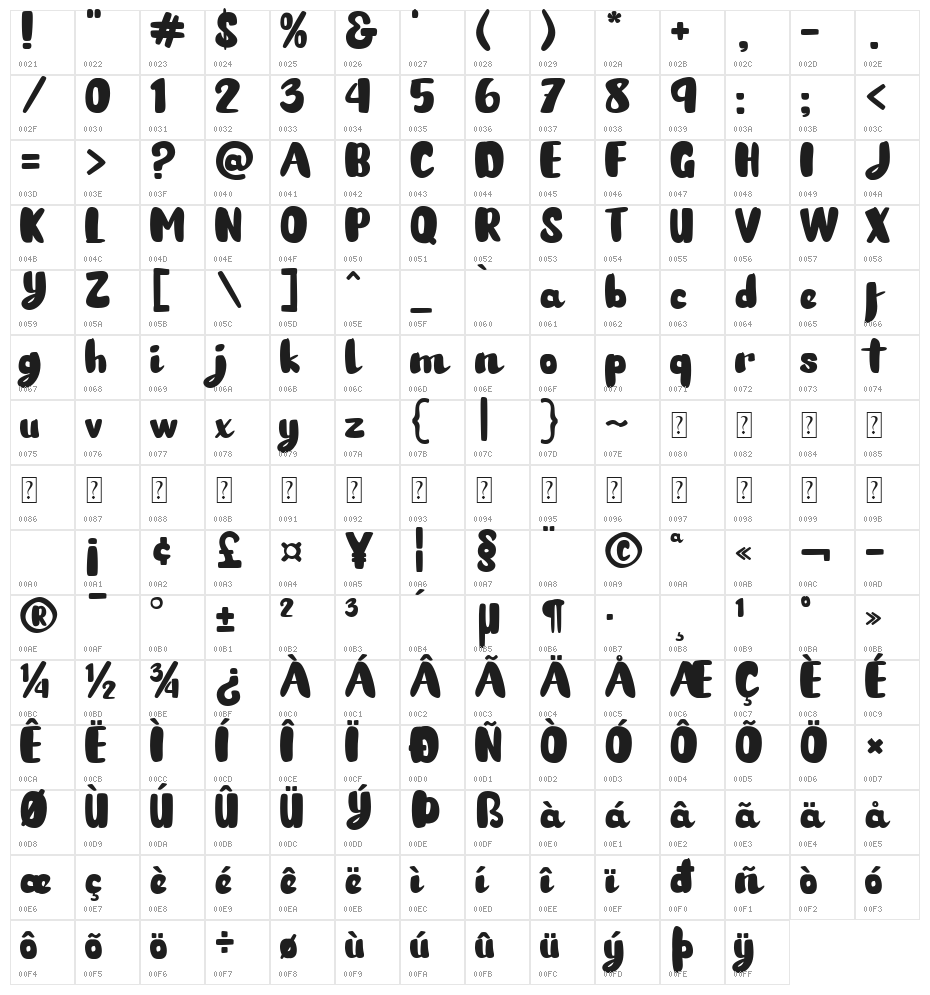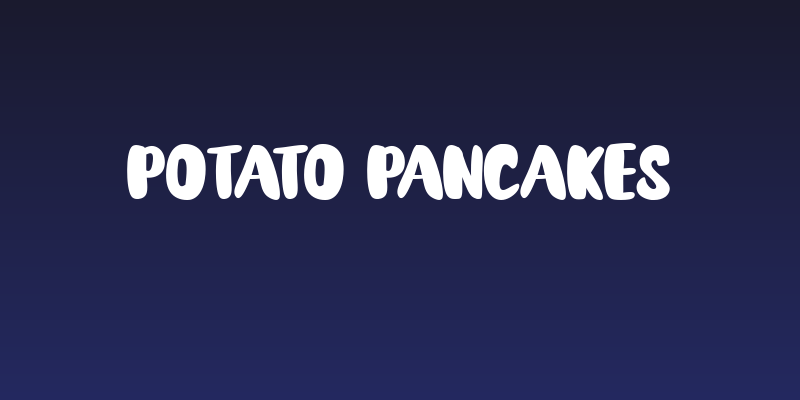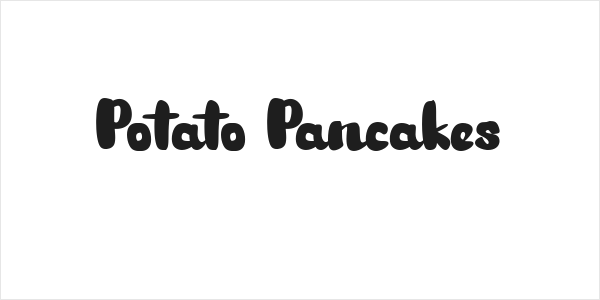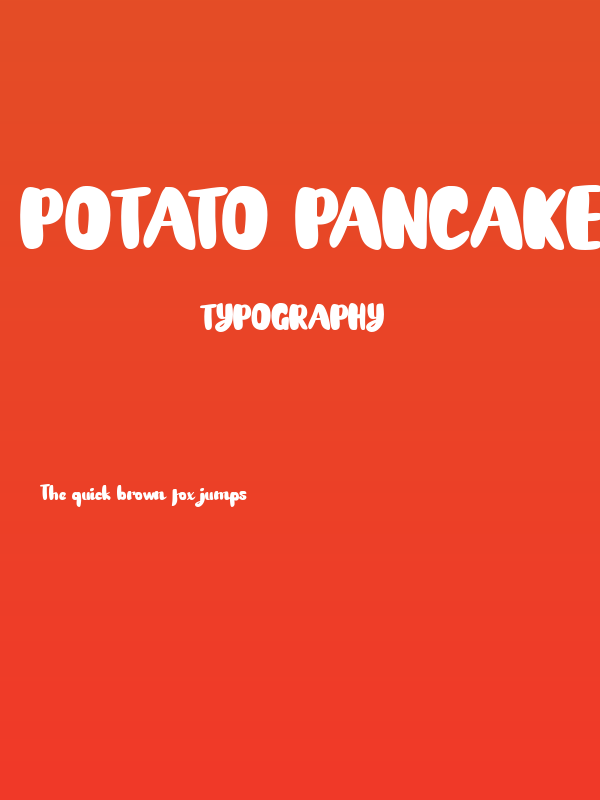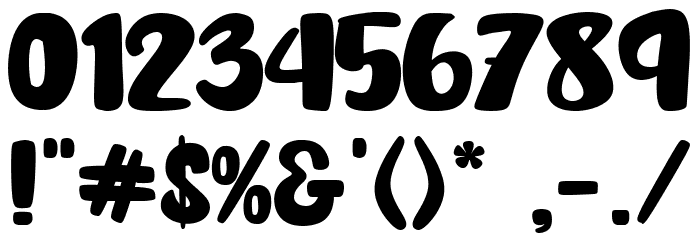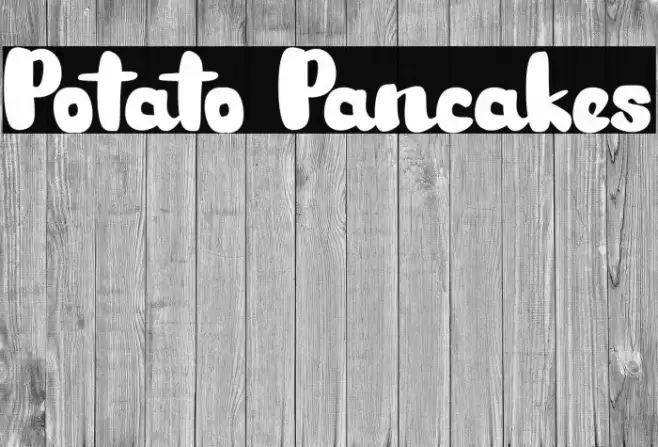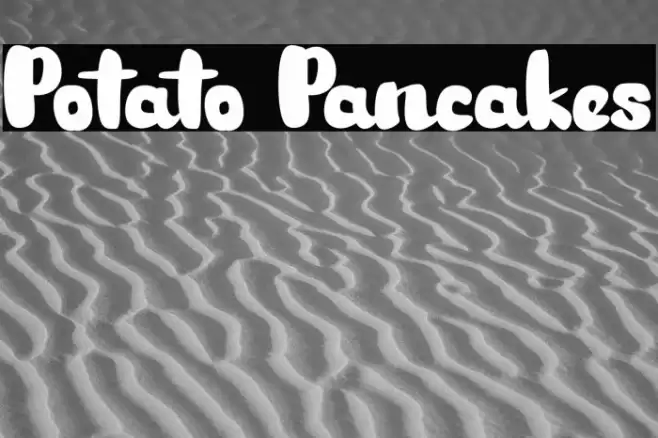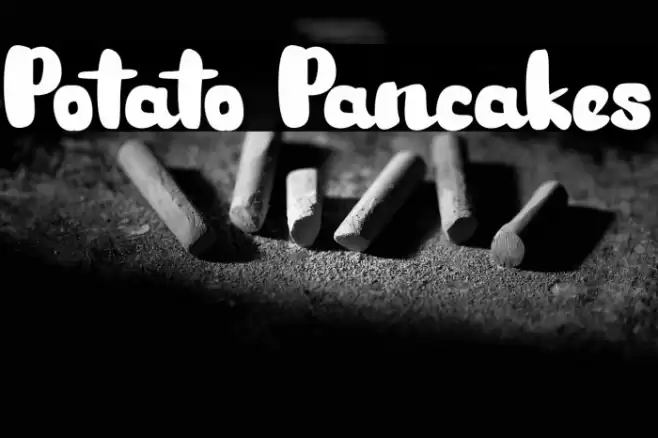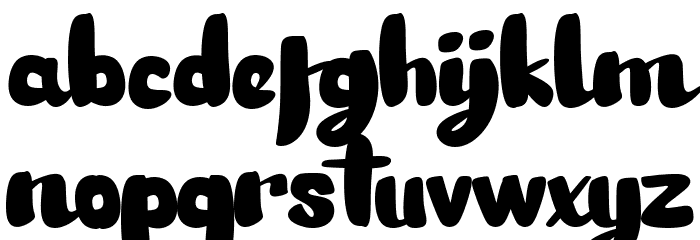
Potato Pancakes Font
Potato Pancakes Description
This font features a bold and playful design with thick, rounded strokes that give it a friendly and approachable appearance. The characters are slightly condensed, contributing to a compact and cohesive look. The uppercase and lowercase letters maintain a consistent style, with smooth curves and a hand-drawn feel. The numbers and special characters are equally bold, ensuring readability and uniformity across different uses. This font's unique style makes it suitable for projects that require a touch of whimsy and creativity.
| Width | Condensed |
| Overall Style | Playful, Creative |
| Proposed Projects | Ideal for children's books, playful branding, posters, and creative social media graphics. |